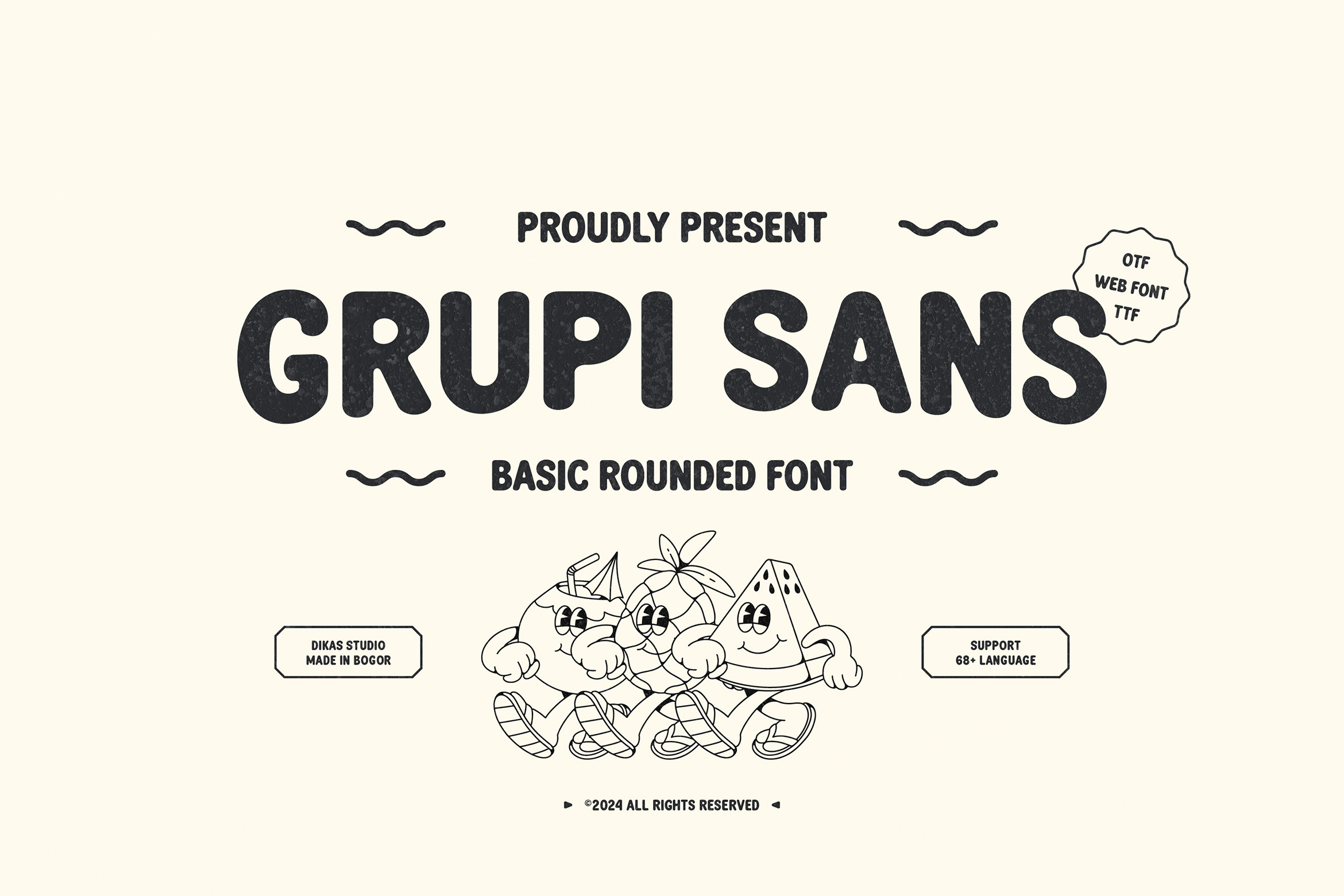
Grupi Sans - Basic Rounded Font
Grupi Sans is a font with rounded, bold, and fun characters, designed to bring a positive vibe to any design. Inspired by retro, groovy, and pop styles, this font is perfect for projects that need a touch of modern nostalgia. With its versatility, Grupi Sans is ideal for creating standout badges and labels that are memorable and eye-catching.